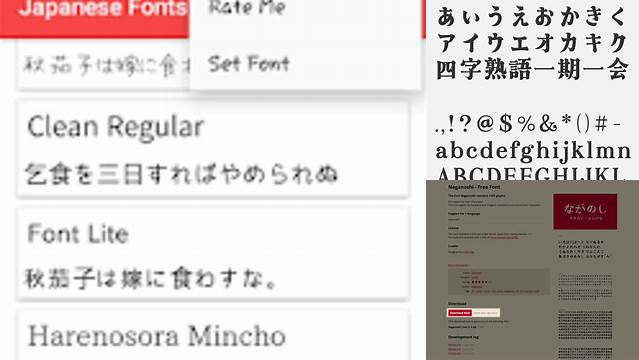
Bold Japanese Fonts For Android: Free Downloads
Hey everyone! So, you're on the hunt for some awesome Japanese bold fonts that you can snag for free on your Android device, right? Well, you've come to the right place, guys! It's not always easy to find exactly what you're looking for when it comes to fonts, especially when you want that specific Japanese flair with a bold, impactful look. Whether you're designing a cool graphic for social media, spicing up your blog, or just want to personalize your phone's text messages, having the right font can make all the difference. We're going to dive deep into where you can find these fonts, what makes them stand out, and how you can easily download and use them on your Android phone in 2026. Get ready to transform your text and make it pop with some seriously stylish Japanese typography!
Exploring the World of Japanese Bold Fonts
So, what exactly are Japanese bold fonts? Basically, these are fonts designed with thicker strokes, giving them a strong and noticeable presence. When applied to Japanese characters (Kanji, Hiragana, and Katakana), this boldness can convey a sense of power, tradition, or even a modern, edgy vibe, depending on the font's design. Think about traditional calligraphy – it often has a natural thickness that feels impactful. Modern digital fonts try to capture that essence or create entirely new styles. The great thing about bold fonts is that they are incredibly versatile. They work wonders for headlines, titles, logos, and anywhere you need text to grab attention. For Japanese typography, the boldness can highlight the intricate strokes of Kanji characters, making them even more dramatic and visually appealing. We'll be looking at how you can find these specific styles for free download on your Android device, ensuring you don't have to spend a dime to elevate your text game. It's all about finding that perfect blend of aesthetic appeal and functional readability, especially when dealing with the complexities of the Japanese writing system. We're talking about fonts that don't just look good, but also feel right for the message you want to send, whether it's elegant, dynamic, or simply unforgettable.
Free Japanese Font Resources for Android Users
Alright, let's talk about where the magic happens – the places where you can actually find these Japanese bold fonts free download for Android. It’s a common quest, and thankfully, there are quite a few legitimate sources out there. Many websites specialize in offering free fonts, and while not all of them will have the specific Japanese styles you’re after, with a bit of digging, you can strike gold. Some popular font repositories often have sections dedicated to East Asian fonts, including Japanese. You’ll want to look for sites that clearly state the license allows for personal and commercial use if that's something you plan on doing. Keep an eye out for sites that offer previews, so you can see how the bold Japanese characters look before you download. Sometimes, you might find free fonts offered directly by font designers on their personal blogs or portfolios. Social media platforms and font communities can also be great places to discover new designers sharing their work. Remember to always check the download source for legitimacy to avoid any malware or unwanted software. We're aiming for safe and stylish options here, guys, so stick to reputable sites. The key is persistence and knowing where to look. We'll cover some specific types of sites and what to expect in terms of variety and quality.
Finding Bold Kanji Fonts Online
Kanji characters are incredibly complex and visually rich, and when you apply a bold font to them, the impact can be truly stunning. Finding bold Kanji fonts that are free to download for your Android device requires a bit of focused searching. Many free font websites will categorize their offerings, and you’ll want to navigate to the sections for Japanese or East Asian fonts. Look for terms like “Gothic,” “Bold,” “Heavy,” or even specific Japanese font names that imply thickness. Sites that host user-submitted fonts might have hidden gems, but always exercise caution and scan downloaded files. When a Kanji character is rendered in a bold style, the thick strokes can emphasize its meaning or artistic form. Imagine the character for “strength” (力) rendered in a heavy, impactful font – it instantly conveys more power. Similarly, a bold font can add a dramatic flair to elegant calligraphy-inspired Kanji. Some designers create bold versions of popular Japanese fonts specifically for graphic design purposes. These are often available for free on specialized design resource sites. We’re talking about fonts that can make your project headers sing or give your personal branding a unique, strong identity. Don’t underestimate the power of a well-chosen bold Kanji font to make your designs memorable and professional, even when using free resources.
Tips for Finding High-Quality Free Japanese Fonts
Finding good Japanese bold fonts free download for Android can feel like searching for a needle in a haystack sometimes, but there are definitely ways to improve your odds. First off, quality matters. A font might be bold, but if the strokes are uneven, the spacing is off, or it just looks poorly rendered, it's not worth using. One great tip is to look for fonts that have been updated or are part of a larger font family. This often indicates a level of professionalism and care from the designer. Check the reviews or comments on font download sites; other users might have already pointed out quality issues or praised a particularly well-made font. Always preview the font with Japanese characters you commonly use. Seeing how Hiragana, Katakana, and common Kanji render in bold is crucial for assessing readability and aesthetic appeal. Many font sites offer a preview tool where you can type in your own text. Consider the font's intended purpose. Some bold fonts are designed for display (headlines, logos), while others might be suitable for longer text, though bold is rarely ideal for body text. For Android customization, display fonts often work best. Look for sites that clearly categorize fonts by style (Gothic, Mincho, etc.) and weight (bold, heavy). This makes your search much more efficient. Finally, don't be afraid to explore less common font sites; sometimes the best free resources are found off the beaten path, but always prioritize safety and legitimacy.
Popular Styles of Bold Japanese Fonts
When we talk about Japanese bold fonts, there's actually a spectrum of styles you can explore. It's not just one type of boldness. Think about the difference between a strong, blocky font and a more elegant, brush-stroke inspired bold font. One of the most common and recognizable styles is the Gothic or Sans-serif type. These fonts typically have clean, uniform stroke widths and lack serifs (the little feet at the end of strokes). When made bold, they have a very modern, clean, and impactful look. They're super popular for headlines and digital interfaces. Another major category is Mincho or Serif fonts. Traditional Mincho fonts have delicate serifs, but bold versions will have significantly thicker serifs and strokes, giving them a more classic, sometimes more formal or traditional feel. These can be quite beautiful when rendered in a heavy weight. Beyond these two main categories, you'll also find brush script or calligraphy-style bold fonts. These mimic the look of traditional Japanese brush painting (Sumi-e) or calligraphy (Shodo), where the natural variation in ink thickness creates a bold, artistic effect. These can be incredibly expressive and unique for certain projects. When searching for Japanese bold fonts free download for Android, keeping these style distinctions in mind will help you zero in on the exact aesthetic you're aiming for. Each style carries a different mood and impact.
The Impact of Bold Gothic Japanese Fonts
Let's zoom in on bold Gothic Japanese fonts. These are your go-to for a modern, clean, and strong aesthetic. Gothic style in typography generally refers to sans-serif fonts, meaning they don't have the little decorative strokes (serifs) at the ends of letters. When you make a Gothic font bold, those clean lines get thicker, resulting in a powerful, no-nonsense look. For Japanese characters, this means Kanji, Hiragana, and Katakana will have solid, uniform strokes that really stand out. Think about how a bold sans-serif font looks on a website banner or a product label – it's direct, readable, and commands attention. Bold Gothic Japanese fonts are fantastic for headlines, titles, logos, and user interface elements on your Android device. They convey a sense of efficiency, clarity, and contemporary style. Imagine your phone's notifications appearing in a crisp, bold Gothic font, or a menu in an app having a strong, readable title. They often feel friendly yet professional. When you're looking for that Japanese bold font free download for Android, keep an eye out for terms like 'Gothic', 'Sans-serif', 'Bold', 'Heavy', or specific Japanese Gothic font names. They are incredibly versatile and are a staple in modern graphic design and digital content creation for a reason – they just work, making your text instantly more impactful and easier to read, especially at a glance.
Finding Free Bold Mincho Japanese Fonts
Now, let's switch gears and talk about bold Mincho Japanese fonts. Mincho fonts are the Japanese equivalent of serif fonts. They traditionally have those small finishing strokes, or serifs, on the ends of their main strokes. When you encounter a bold Mincho font, these serifs and the main strokes themselves become significantly thicker and more substantial. This gives the text a more classic, traditional, and often more elegant or sophisticated feel compared to the clean lines of Gothic fonts. Bold Mincho fonts can bring a sense of gravitas and refinement to your text. They are excellent for formal invitations, literary works, historical contexts, or any design where you want to evoke a sense of tradition and established style. Think about the difference between a modern tech company's logo (often sans-serif/Gothic) and a prestigious publishing house's imprint (often serif/Mincho). When searching for Japanese bold fonts free download for Android, specifically look for fonts described as 'Mincho', 'Serif', 'Kassei' (meaning bold in Japanese), or 'Heavy'. These fonts can add a touch of class and seriousness to your projects. While sometimes perceived as more traditional, a well-designed bold Mincho font can also appear quite contemporary and stylish, offering a beautiful contrast to simpler designs. They add a layer of depth and character that can make your Japanese text truly memorable.
Exploring Bold Brush and Calligraphy Japanese Fonts
For something a bit more artistic and expressive, you've got to check out the bold brush and calligraphy Japanese fonts. These fonts are designed to mimic the dynamic strokes of traditional Japanese calligraphy (Shodo) or brush art. The